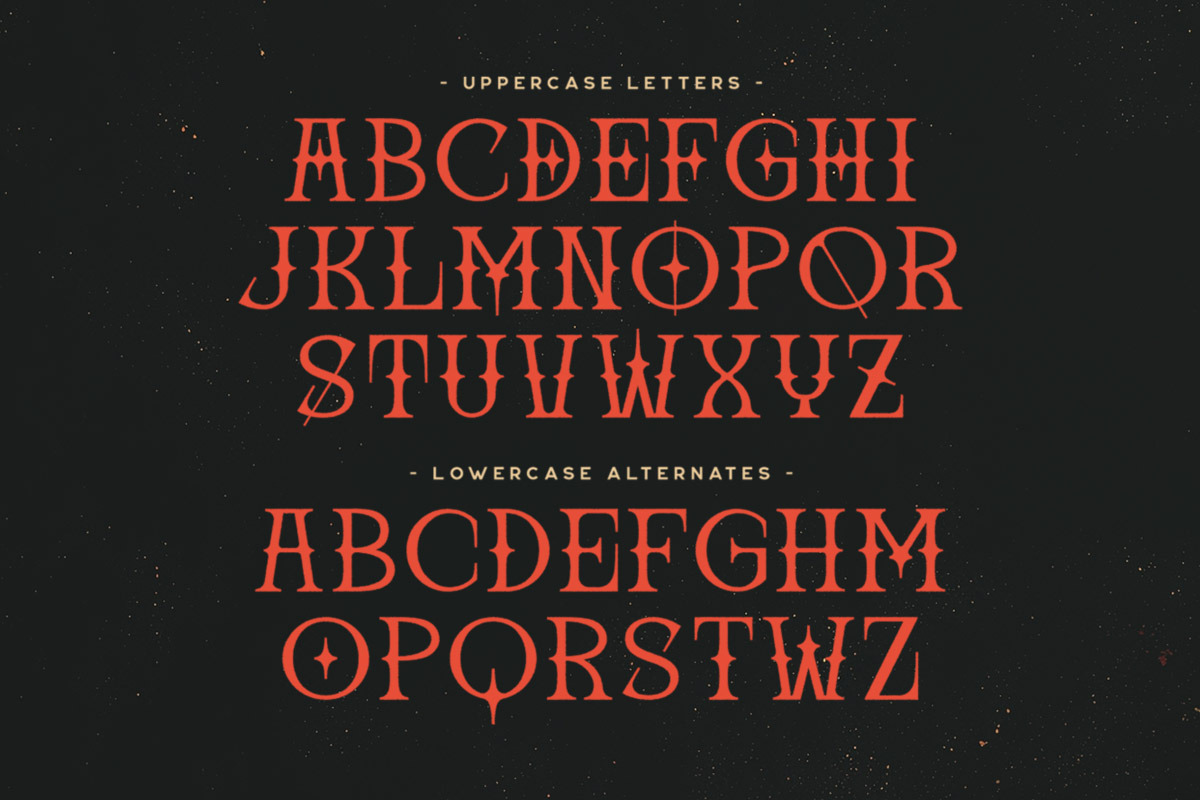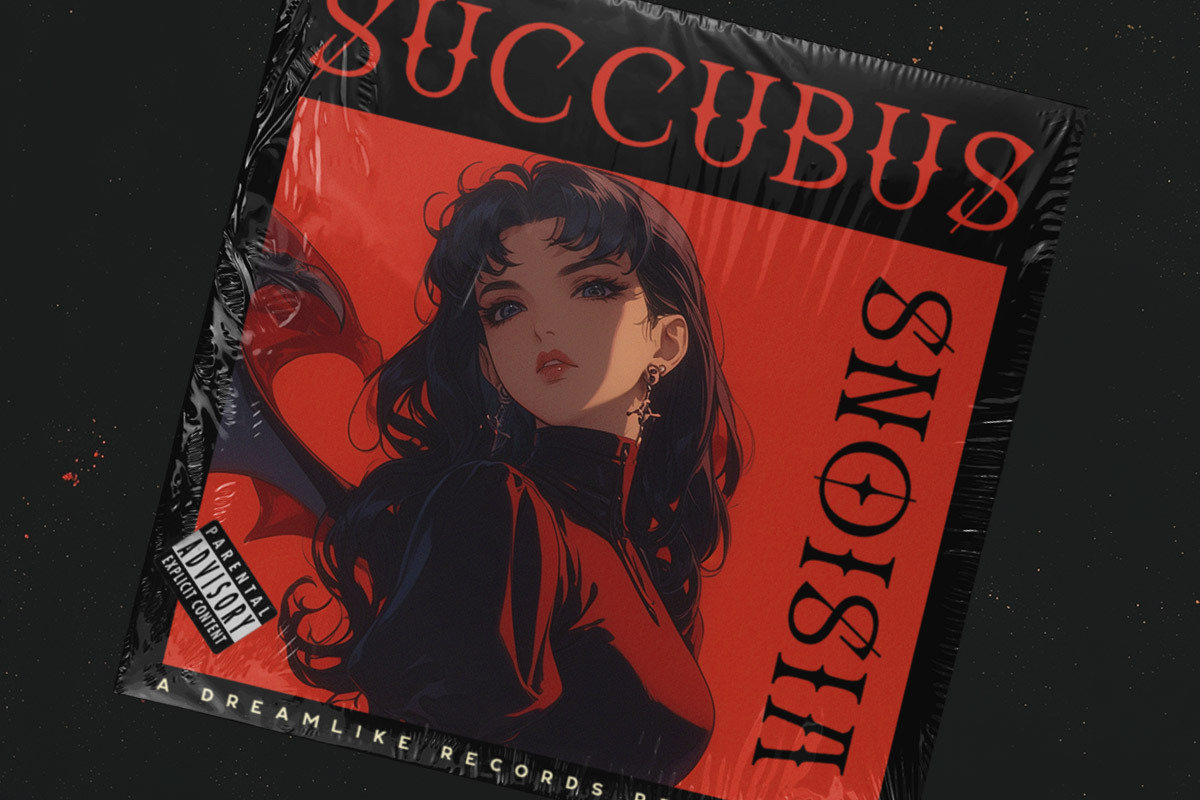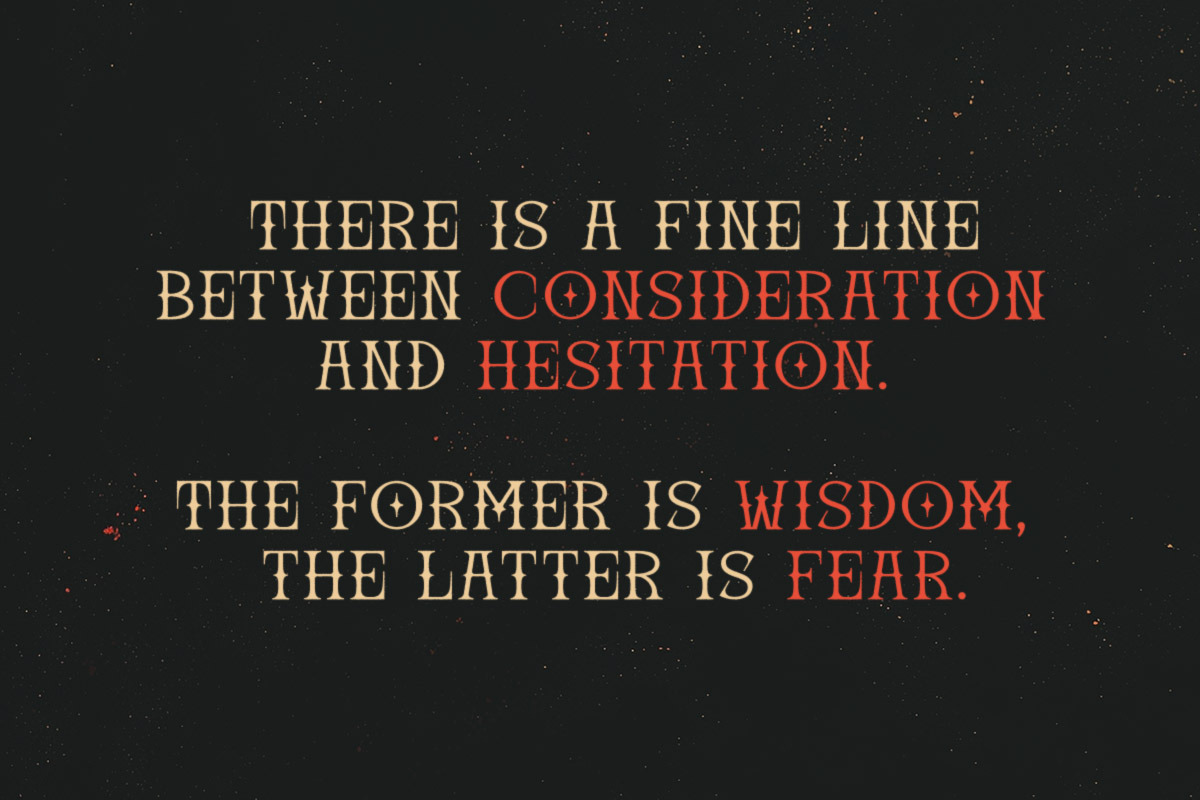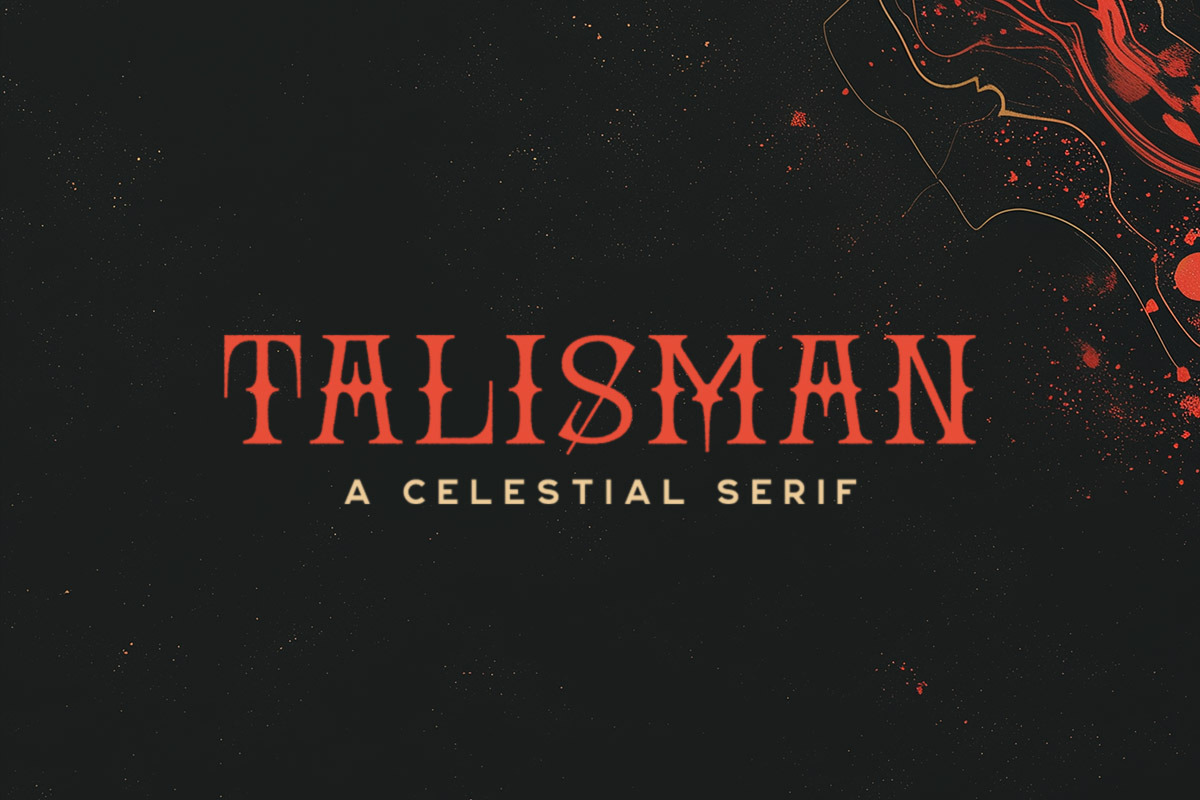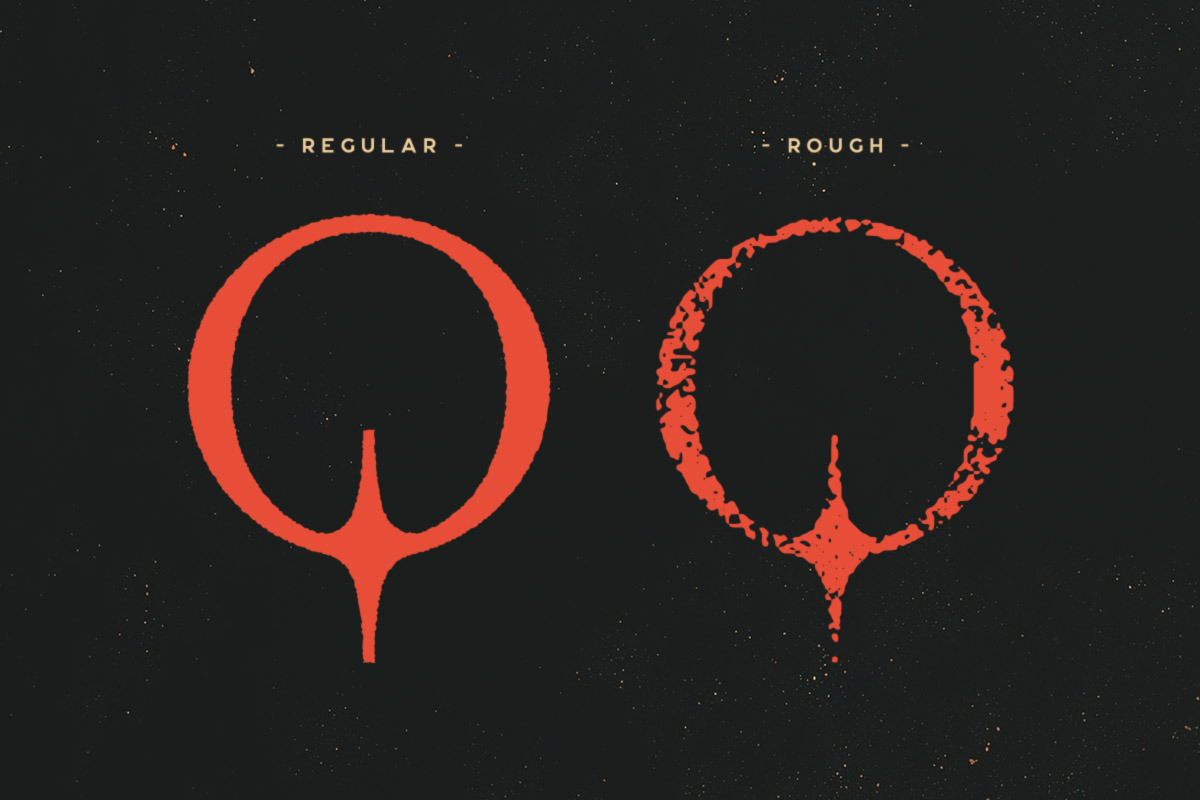
Talisman Typeface
Talisman is a fantasy serif type with a ton of alternate characters that can be toggled via Caps Lock. It also has a rough style which might be taxing on your setup so use with caution.